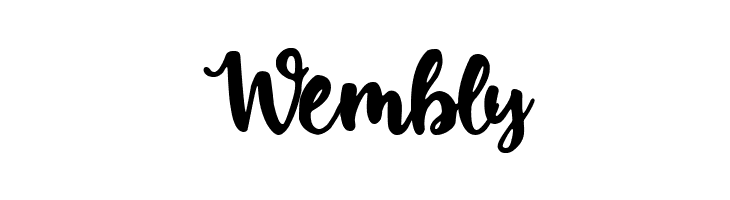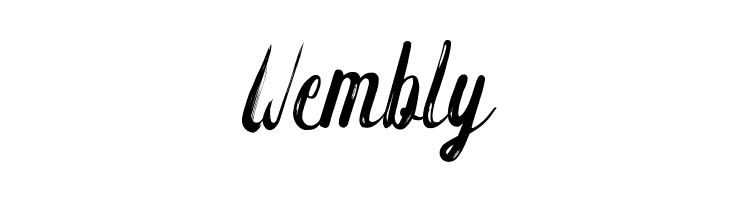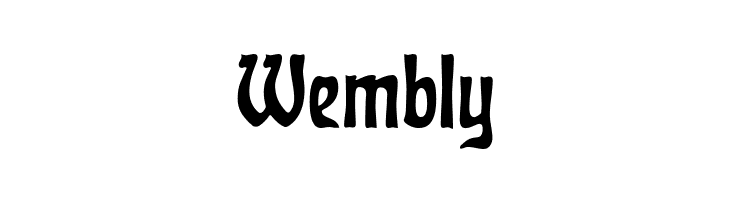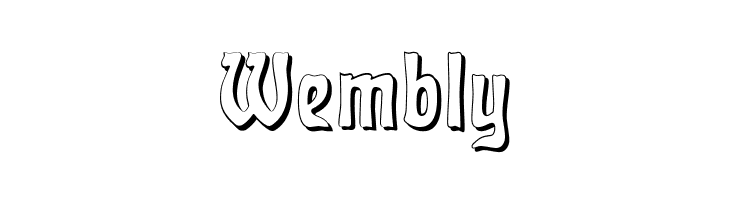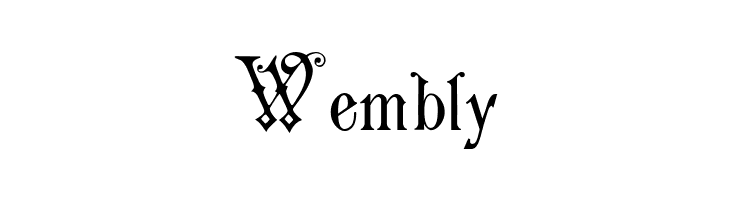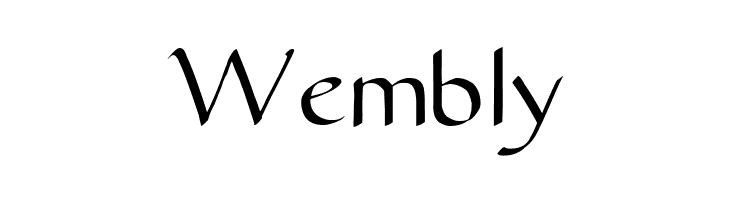
Carmen Font
A playful, hand-drawn font with a graffiti-like, chaotic style.
Carmencita Font
Font by Klaus Johansen - www.listemageren.dK
An ornate and decorative font with intricate flourishes and high contrast.
Pea Carmen Font
A playful, casual handwritten font with a dynamic and lively appearance.
Carmen Regular Font
Font by Dieter Steffmann
A bold, artistic font with a hand-crafted appearance, perfect for creative projects.
Carmen Font
A decorative blackletter-style font with intricate flourishes and medium contrast.
Carmenta Font
PunkWinter
An elegant, modern font with medium contrast and dynamic curves.
Carmen Caps Inside Font
Font by www.haroldsfonts.com
A bold, decorative font with sharp angles and a modern flair.
Carmen Polo Superstar Font
A bold, expressive handwritten font with dynamic curves and thick strokes.
Carmenta Italic Font
PunkWinter
An elegant italic font with smooth curves and a refined style.
Carmen Shadow Font
Font by Dieter Steffmann
A bold, playful font with a shadow effect for a 3D appearance.
Carmen Caps Outside Font
Font by www.haroldsfonts.com
A bold, decorative font with fluid, enclosed characters.
Carmentz Font
A dynamic script font with fluid, sweeping strokes and calligraphic elegance.